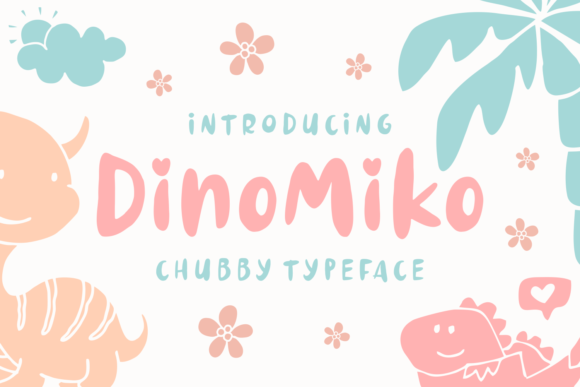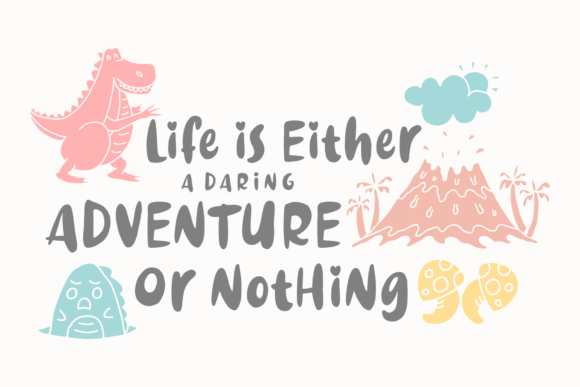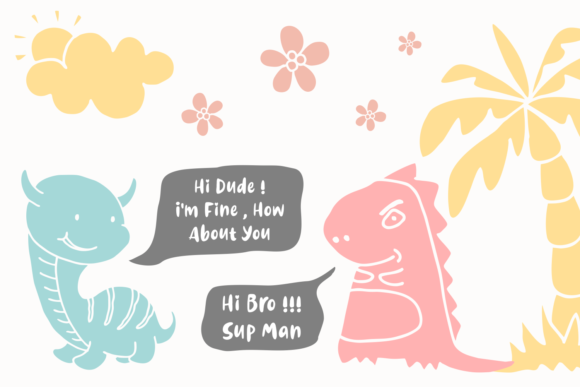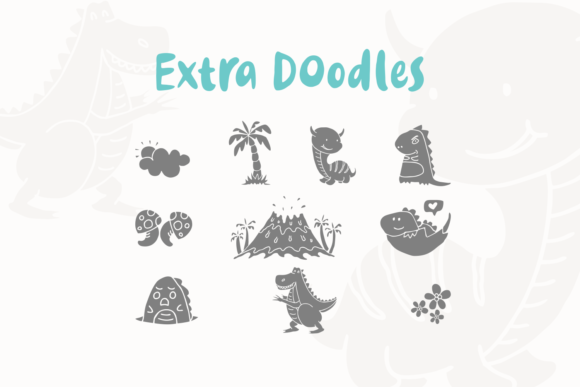
Dinomiko Font
About Dinomiko Font
The Dinomiko is a fun typeface. It has a childlike feel to it which will give your design a playful look. There are fun doodles included to give your designs that little extra.